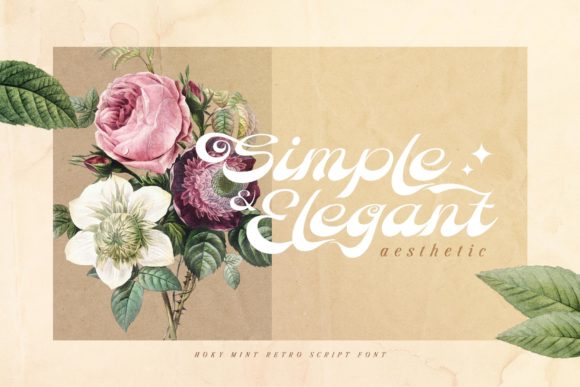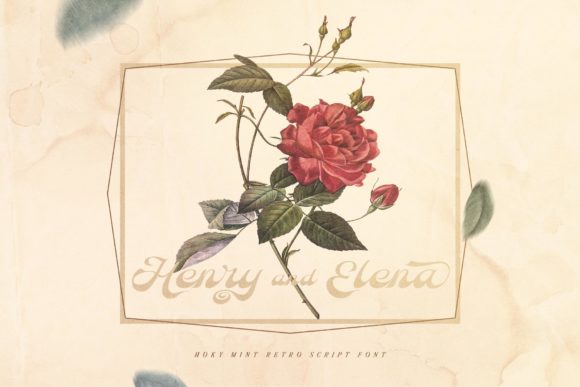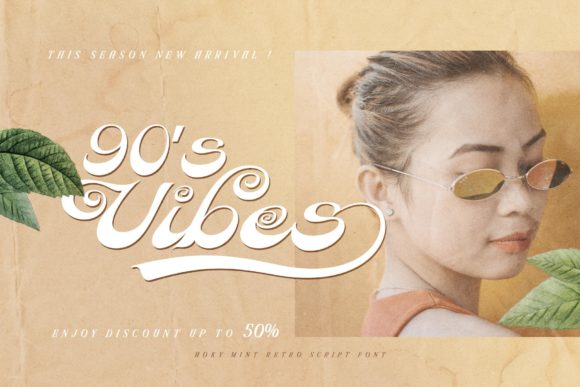
Introduction to Hoky Mint Font
Remember that moment when you’re working on a design project, and you just can’t seem to find the right font to bring it all together? The perfect font can make all the difference between a decent design and a truly eye-catching one. And that’s exactly what we’re excited to introduce you to – the Hoky Mint Font.
This retro-styled display font is not just a pretty face; it’s a valuable resource for designers who want to elevate their creative projects to the next level. With its trendy and stylish aesthetic, Hoky Mint Font is sure to impress. Plus, its PUA encoding makes it easy to access all the glyphs and swashes you need, giving you complete control over your design.
- High-Quality Design Resource: Hoky Mint Font is a carefully crafted, professional font designed to meet the needs of various creative projects.
- Unique Characteristics: Hoky Mint Font features a unique blend of modern and minimalist design elements, making it perfect for a wide range of creative projects.
Honest Review: Hoky Mint Font
As a designer, I’m always on the lookout for high-quality design resources to elevate my creative projects. Recently, I stumbled upon the Hoky Mint Font, and I’m excited to share my honest review.
- ✨ The font has a unique, modern aesthetic that’s perfect for trendy designs.
- ✨ It’s incredibly versatile, making it suitable for a wide range of creative projects, from logos to brochures.
However, there are some limitations:
- ⚠️ The character set is limited, which may not be ideal for projects that require a wide range of characters.
Overall, I’m impressed with the Hoky Mint Font’s potential, but I wish it had a more comprehensive character set and a transparent background. Still, it’s a great addition to any designer’s toolkit, especially for free.
Hoky Mint Font is a high-quality, free download font perfect for your next creative project. With its unique and elegant design, it’s ideal for any project that requires a touch of sophistication.
Hoky Mint Font is perfect for use in wedding invitations, branding materials, and other creative projects where a touch of elegance is required. It’s also great for use in digital design, such as website headers and social media graphics.